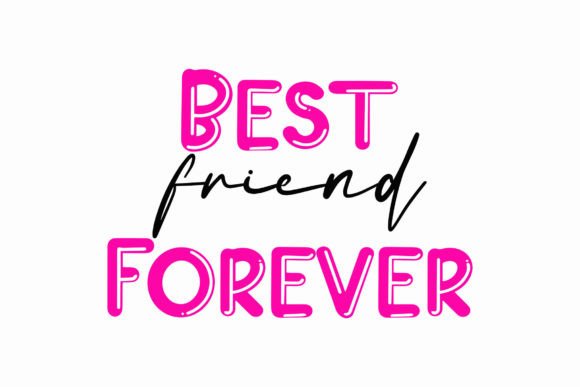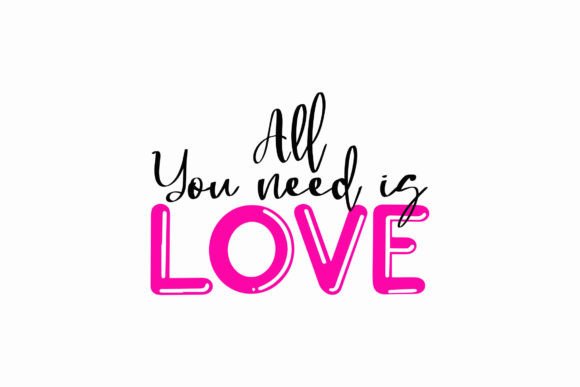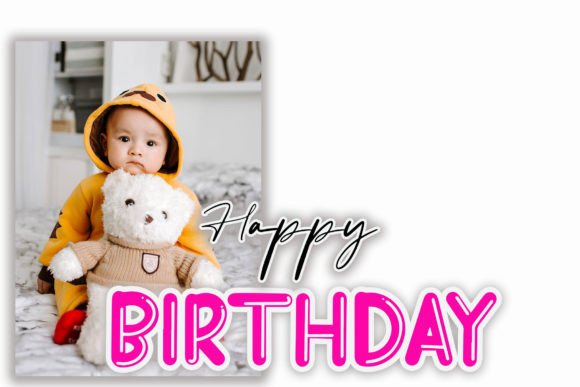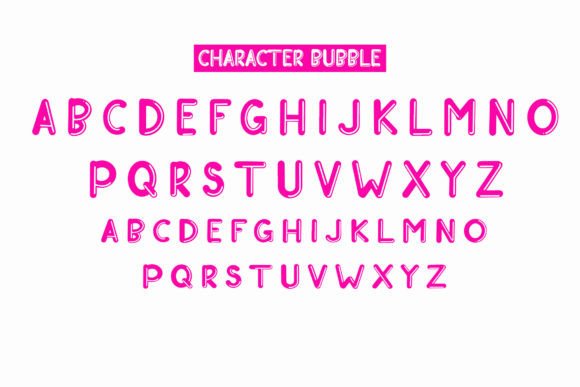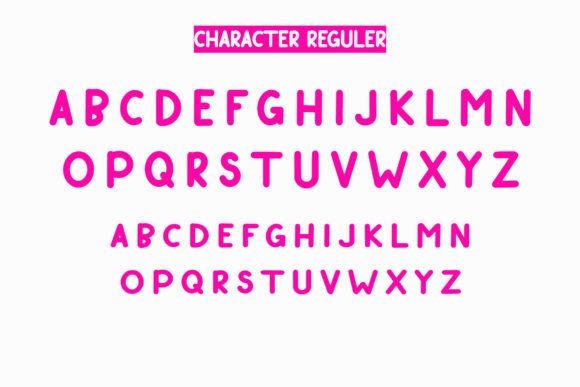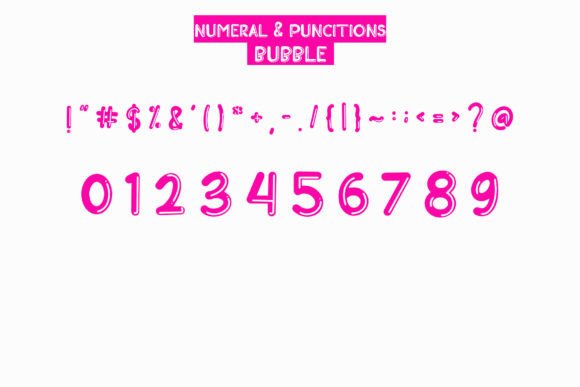
Introducing Balonee Font: The Ultimate Handwriting Font for Creative Projects
Are you tired of using the same old fonts for your creative projects? Do you want to add a touch of whimsy and fun to your designs? Look no further than Balonee Font, an adorable handwriting font that’s perfect for bringing a unique and playful vibe to your work. In this article, we’ll dive into the world of Balonee Font, exploring its features, benefits, and uses, and show you why it’s a must-have for designers and crafters alike.
What is Balonee Font?
Balonee Font is a handwriting font that’s designed to bring a sense of playfulness and charm to your designs. Each character is carefully crafted with distinct shapes, adding a touch of personality and whimsy to your work. The font’s cute and curly style makes it perfect for a wide range of creative projects, from branding and packaging to social media and more.
Key Features of Balonee Font
• Unique and Whimsical Style: Balonee Font boasts a one-of-a-kind handwriting style that’s sure to make your designs stand out from the crowd.
• Carefully Crafted Characters: Each character is meticulously designed with distinct shapes, adding charm and personality to your work.
• Perfect for Creative Projects: Balonee Font is ideal for a wide range of creative projects, including branding, packaging, social media, and more.
• Easy to Read and Understand: Despite its playful style, Balonee Font is easy to read and understand, making it perfect for use in a variety of contexts.
Benefits of Using Balonee Font
So why should you choose Balonee Font for your creative projects? Here are just a few benefits of using this amazing handwriting font:
• Adds a Touch of Whimsy: Balonee Font brings a playful and whimsical touch to your designs, making them more visually appealing and engaging.
• Stand Out from the Crowd: With its unique and distinctive style, Balonee Font helps your designs stand out from the crowd and grab attention.
• Perfect for Branding and Marketing: Balonee Font is ideal for use in branding and marketing materials, helping you to create a memorable and recognizable brand identity.
Uses for Balonee Font
So what can you use Balonee Font for? The possibilities are endless! Here are just a few ideas to get you started:
• Branding and Packaging: Use Balonee Font to create eye-catching branding and packaging materials that stand out on store shelves.
• Social Media: Add a touch of whimsy to your social media posts and stories with Balonee Font.
• Invitations and Stationery: Use Balonee Font to create adorable invitations, stationery, and other paper goods.
• Crafting and DIY Projects: Balonee Font is perfect for use in crafting and DIY projects, such as handmade cards, gift tags, and more.
Tips for Using Balonee Font
Here are a few tips for getting the most out of Balonee Font:
• Experiment with Different Sizes: Try using Balonee Font in different sizes to add visual interest and emphasis to your designs.
• Pair with Other Fonts: Combine Balonee Font with other fonts to create a unique and eye-catching typography style.
• Use in Combination with Images: Use Balonee Font in combination with images and graphics to add an extra layer of visual interest to your designs.